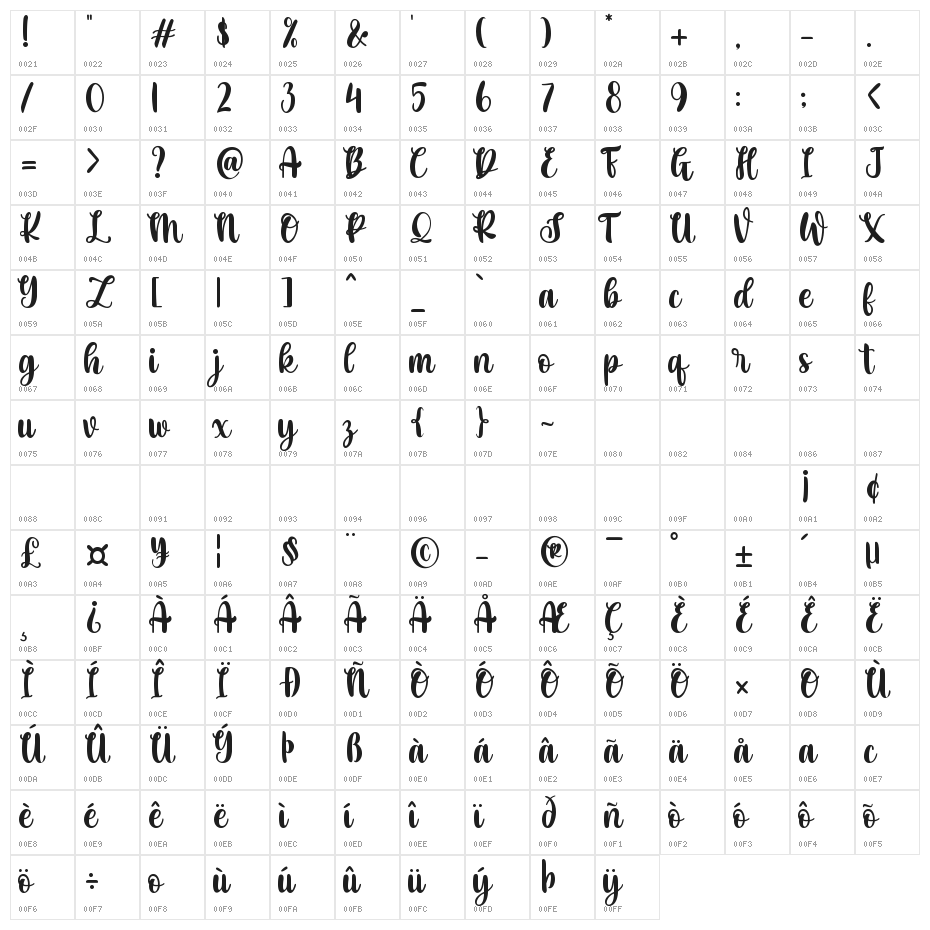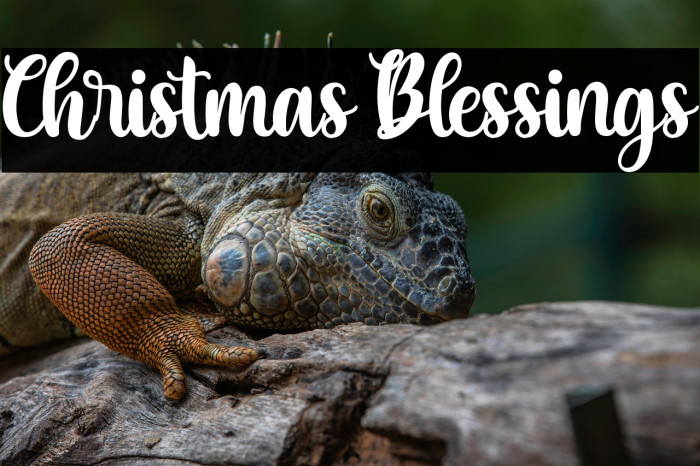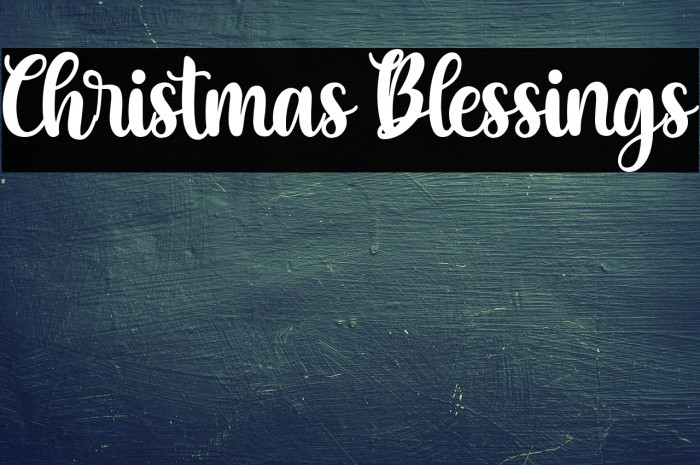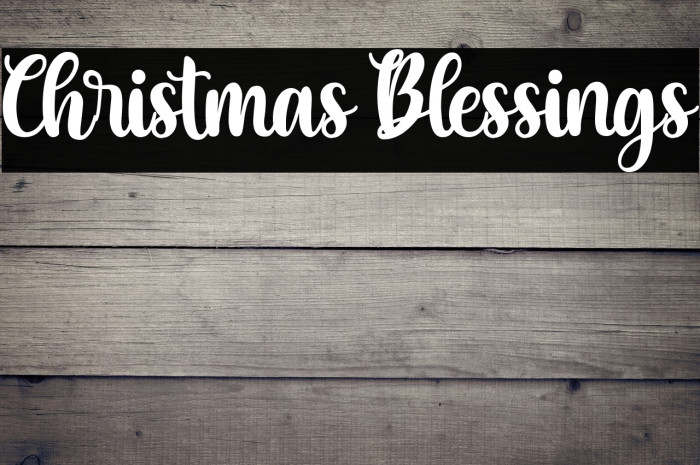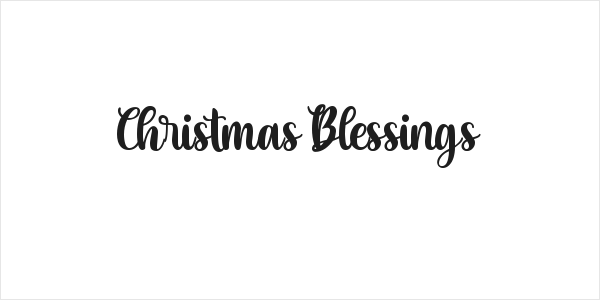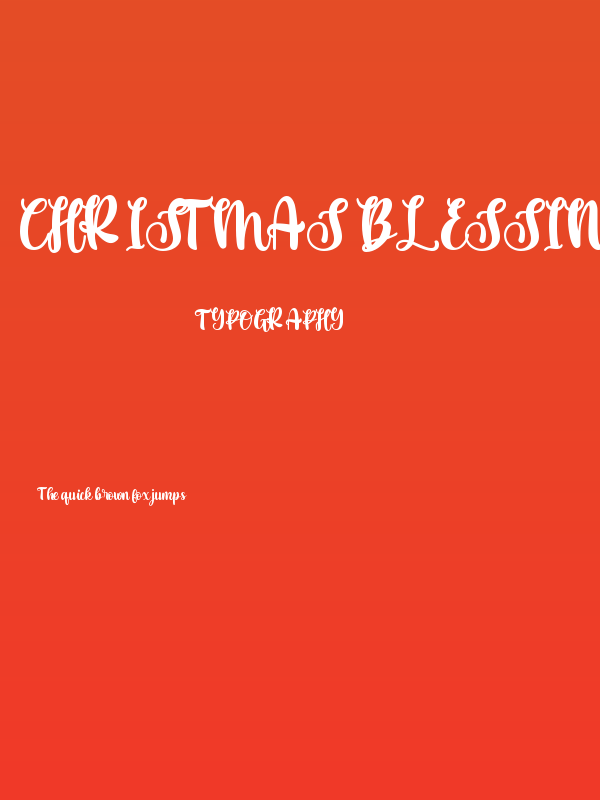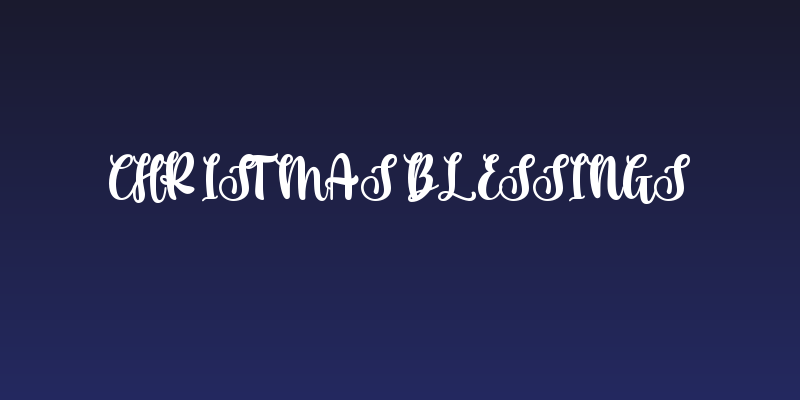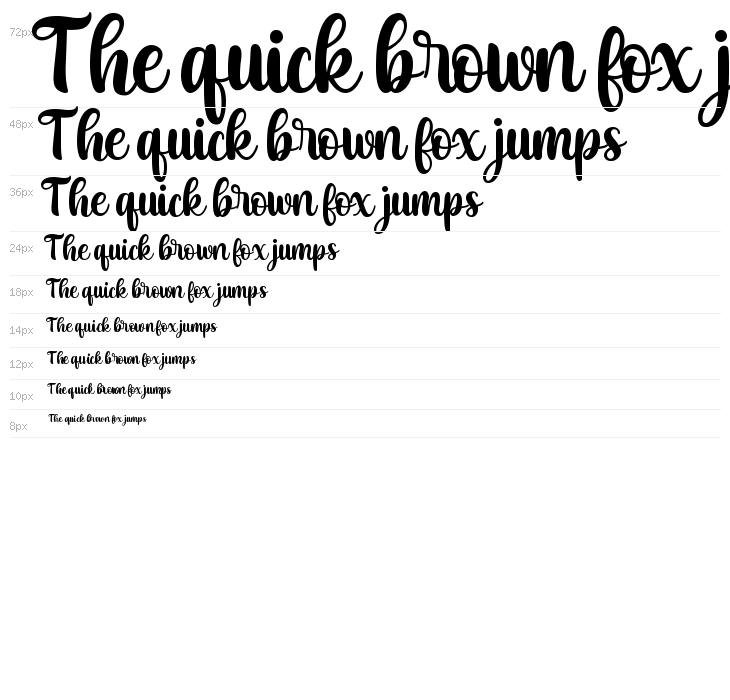
Christmas Blessings Font
Christmas Blessings Description
This font features a playful and festive script style, characterized by its flowing, interconnected letters and decorative flourishes. The uppercase letters are bold and prominent, with a whimsical touch that adds a sense of joy and celebration. The lowercase letters maintain a consistent style, with smooth curves and loops that enhance its handwritten appearance. The numerals are clear and easy to read, while the special characters complement the overall design with their unique flair. This font exudes a sense of warmth and charm, making it ideal for holiday-themed projects.
Use CaseHeadlines, Logos, Invitations
Proposed ProjectsIdeal for holiday cards, festive invitations, seasonal decorations, and cheerful branding projects.